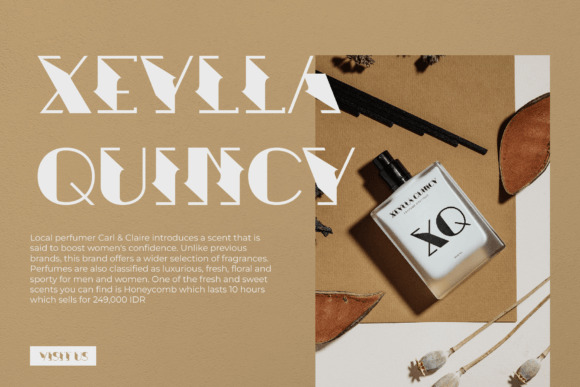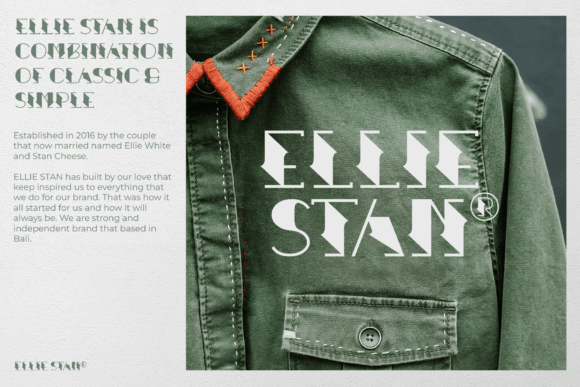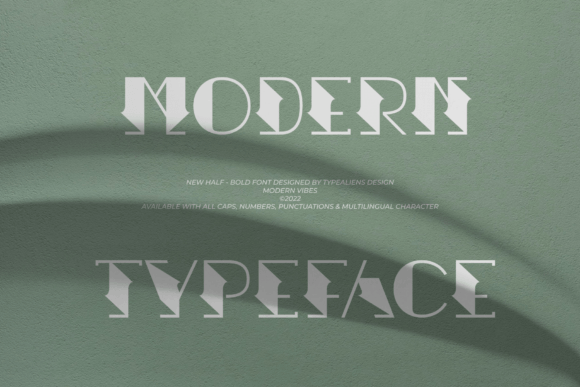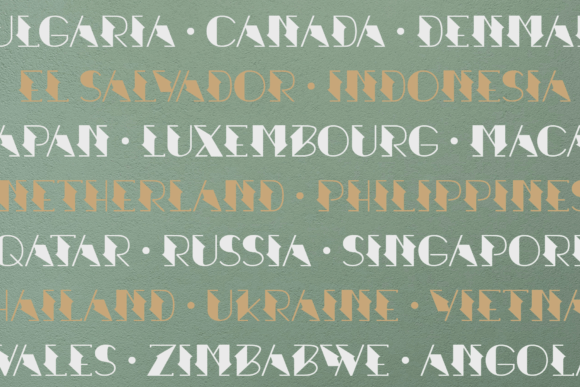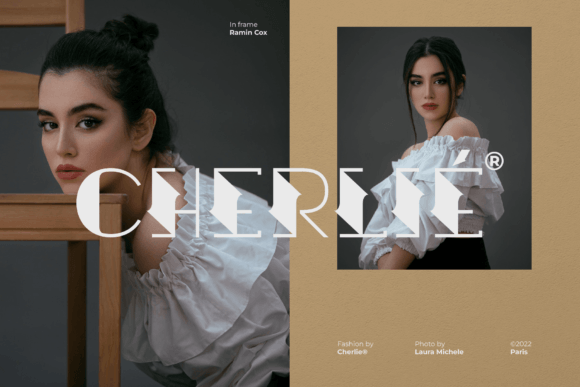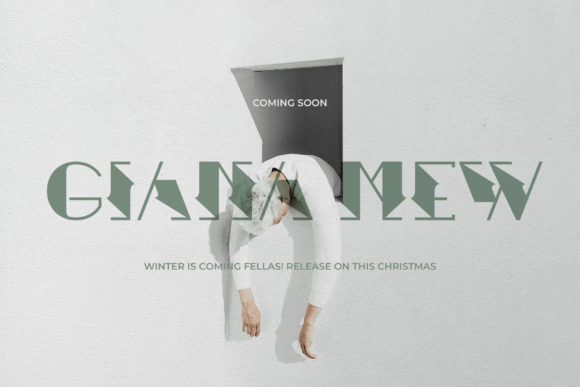
Introducing Carvinet Font: The Quirky Display Font You Need
Are you tired of using the same old fonts for your designs? Look no further! Carvinet Font is a unique and quirky display font that’s perfect for adding a touch of personality to your headlines, logos, and designs. In this article, we’ll dive into the features and benefits of Carvinet Font, and explore how it can elevate your design game.
What is Carvinet Font?
Carvinet Font is a display font designed to make a statement. Its quirky and playful style makes it ideal for use in headlines, titles, and short texts. The font’s unique design features a mix of bold and delicate lines, creating a visually appealing contrast that’s sure to grab attention.
Key Features of Carvinet Font
- Unique and Quirky Design: Carvinet Font boasts a one-of-a-kind design that’s sure to set your designs apart from the rest.
- Display Font: Carvinet Font is specifically designed for display purposes, making it perfect for headlines, titles, and short texts.
- Versatile: Use Carvinet Font for a variety of design projects, including magazines, websites, logos, T-shirt designs, and more.
- Easy to Read: Despite its quirky design, Carvinet Font is easy to read, even at smaller sizes.
Benefits of Using Carvinet Font
So, why should you choose Carvinet Font for your designs? Here are just a few benefits of using this amazing font:
- Adds Personality to Your Designs: Carvinet Font’s unique design injects personality into your designs, making them more engaging and memorable.
- Stand Out from the Crowd: With Carvinet Font, you can create designs that stand out from the crowd and grab attention.
- Perfect for Creative Projects: Carvinet Font is ideal for creative projects, such as magazine layouts, website headers, and T-shirt designs.
- Easy to Pair with Other Fonts: Carvinet Font pairs well with a variety of other fonts, making it easy to create a cohesive design.
How to Use Carvinet Font
Using Carvinet Font is easy! Here are a few tips to get you started:
- Use it as a Headline Font: Carvinet Font is perfect for use as a headline font, adding a touch of personality to your titles and headings.
- Pair it with Other Fonts: Experiment with pairing Carvinet Font with other fonts to create a unique and cohesive design.
- Use it for Logos and Branding: Carvinet Font’s quirky design makes it perfect for use in logos and branding materials.
- Experiment with Different Sizes and Colors: Don’t be afraid to experiment with different sizes and colors to make your designs pop.
In conclusion, Carvinet Font is a unique and quirky display font that’s perfect for designers and crafters looking to add a touch of personality to their designs. With its bold and delicate lines, Carvinet Font is sure to grab attention and make your designs stand out from the crowd. Whether you’re working on a magazine layout, website header, or T-shirt design, Carvinet Font is a great choice. So why wait? Add Carvinet Font to your fonts library today and start creating amazing designs!
Here are a few final tips for designers and crafters looking to get the most out of Carvinet Font:
- Experiment with Different Design Elements: Don’t be afraid to experiment with different design elements, such as colors, textures, and patterns.
- Keep it Simple: While Carvinet Font is a bold and quirky font, it’s best to keep your designs simple and easy to read.
- Have Fun: Most importantly, have fun with Carvinet Font! Its unique design is perfect for creative and playful designs.